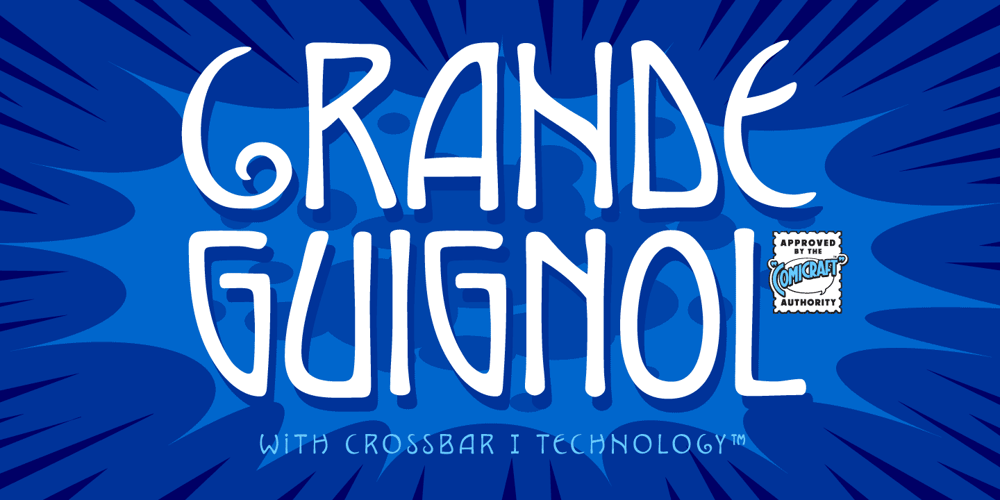
Grand Guignol Font Family was designed by John Roshell and published by Comicraft. Grand Guignol contains 2 styles and family package options. A gruesome operatic drama is about to unfold, a tragic performance of the macabre! We offer for your entertainment a series of unfortunate events full of shocks and lugubrious revelations which will chill you to the bone! We also offer you this font, which may have similar effects, including nausea, migraine, heart palpitations and stomach upset. Pretty, though, isn’t it?Art Deco & Art Nouveau posters, this font pair defined the look of John’s MARVEL’S FINEST book designs in the early 2000s, and Richard’s comic ASK FOR MERCY in the 2020s!